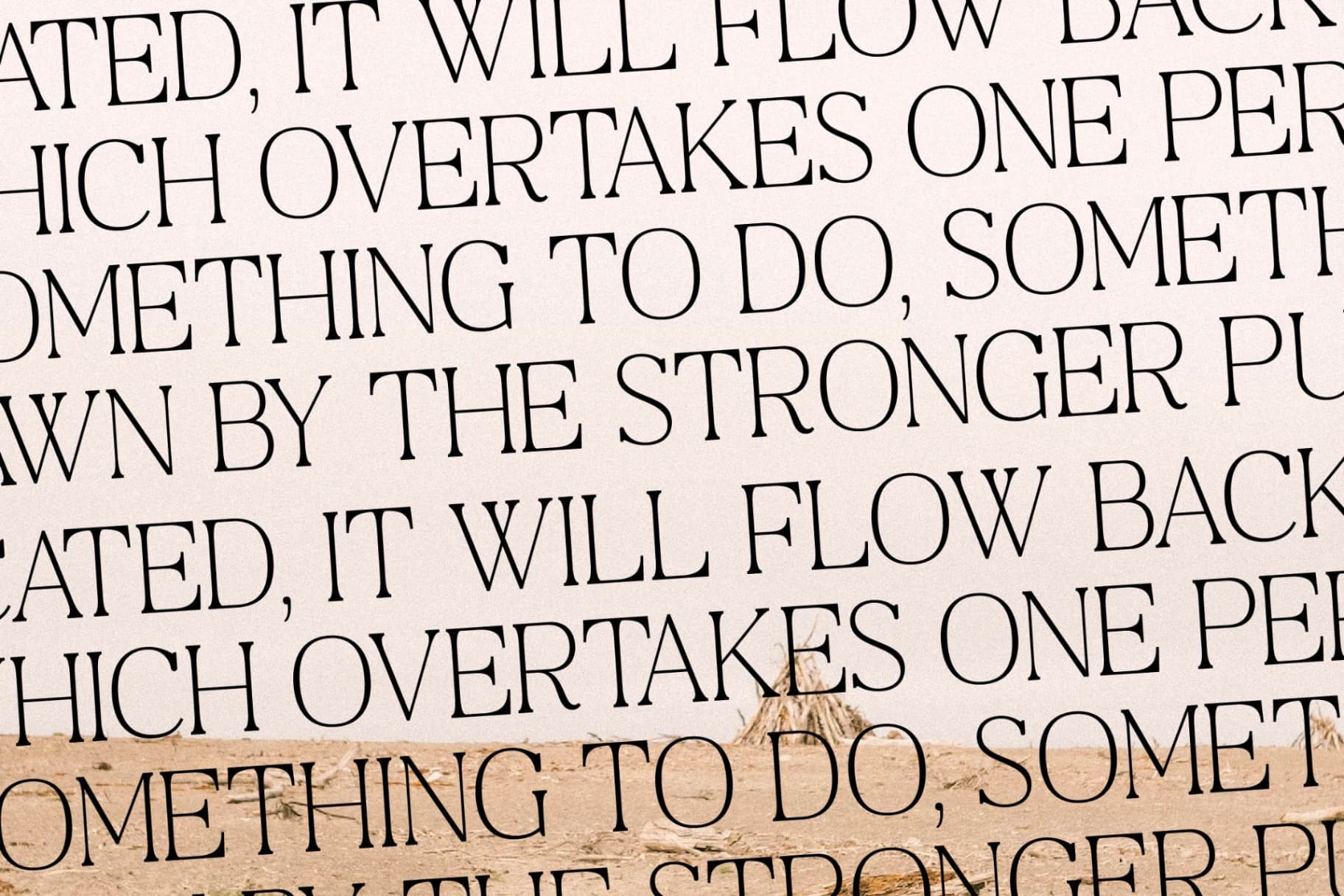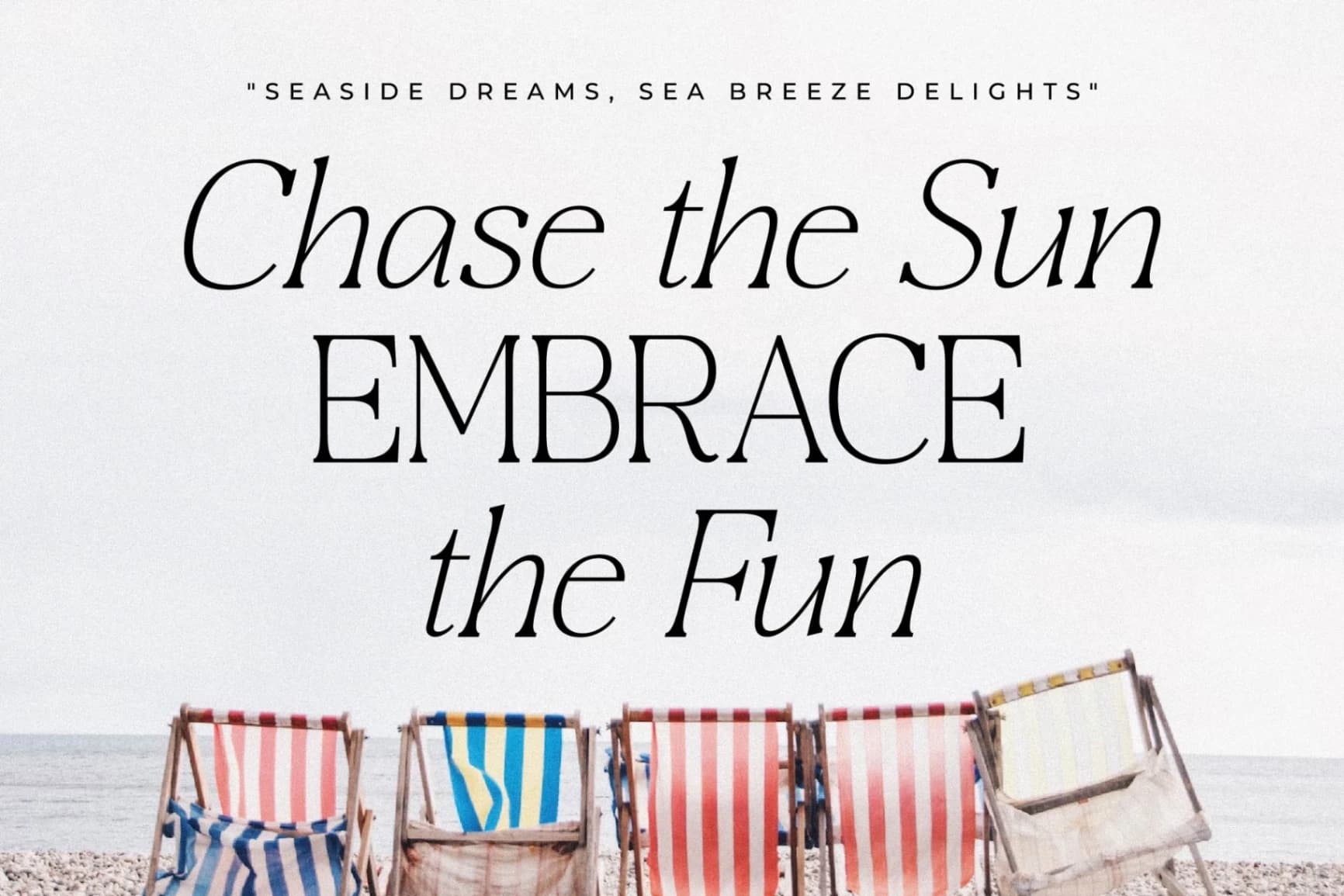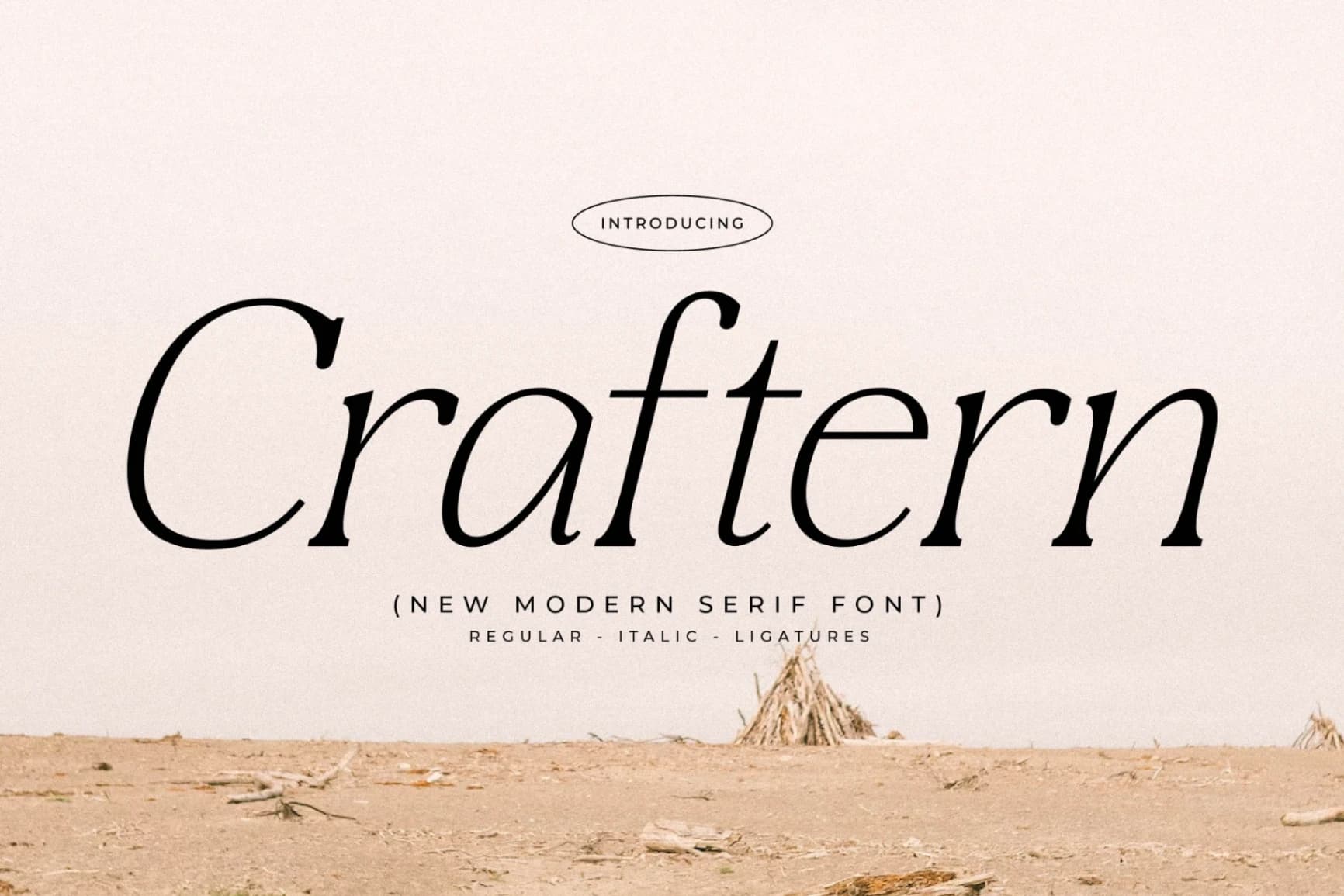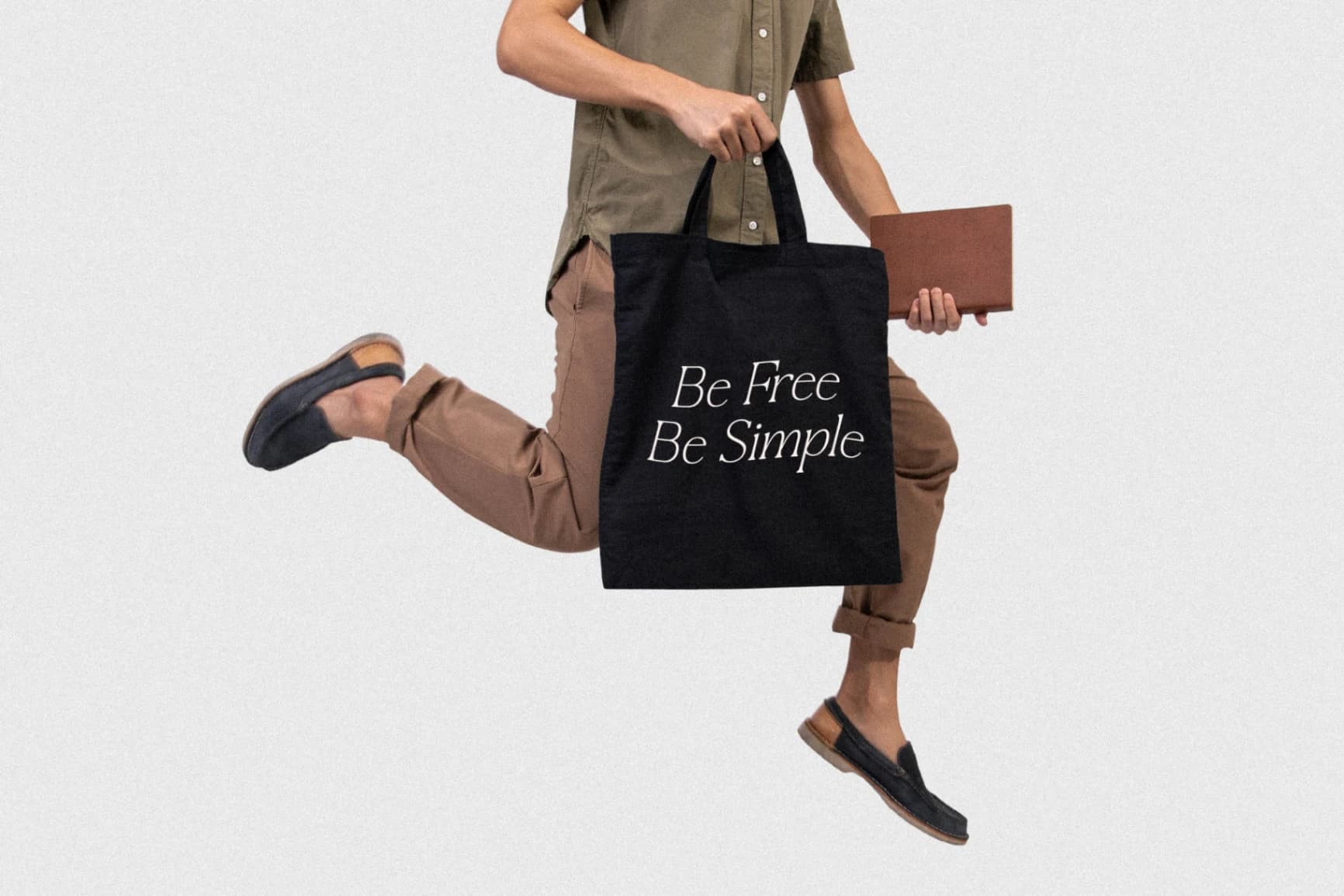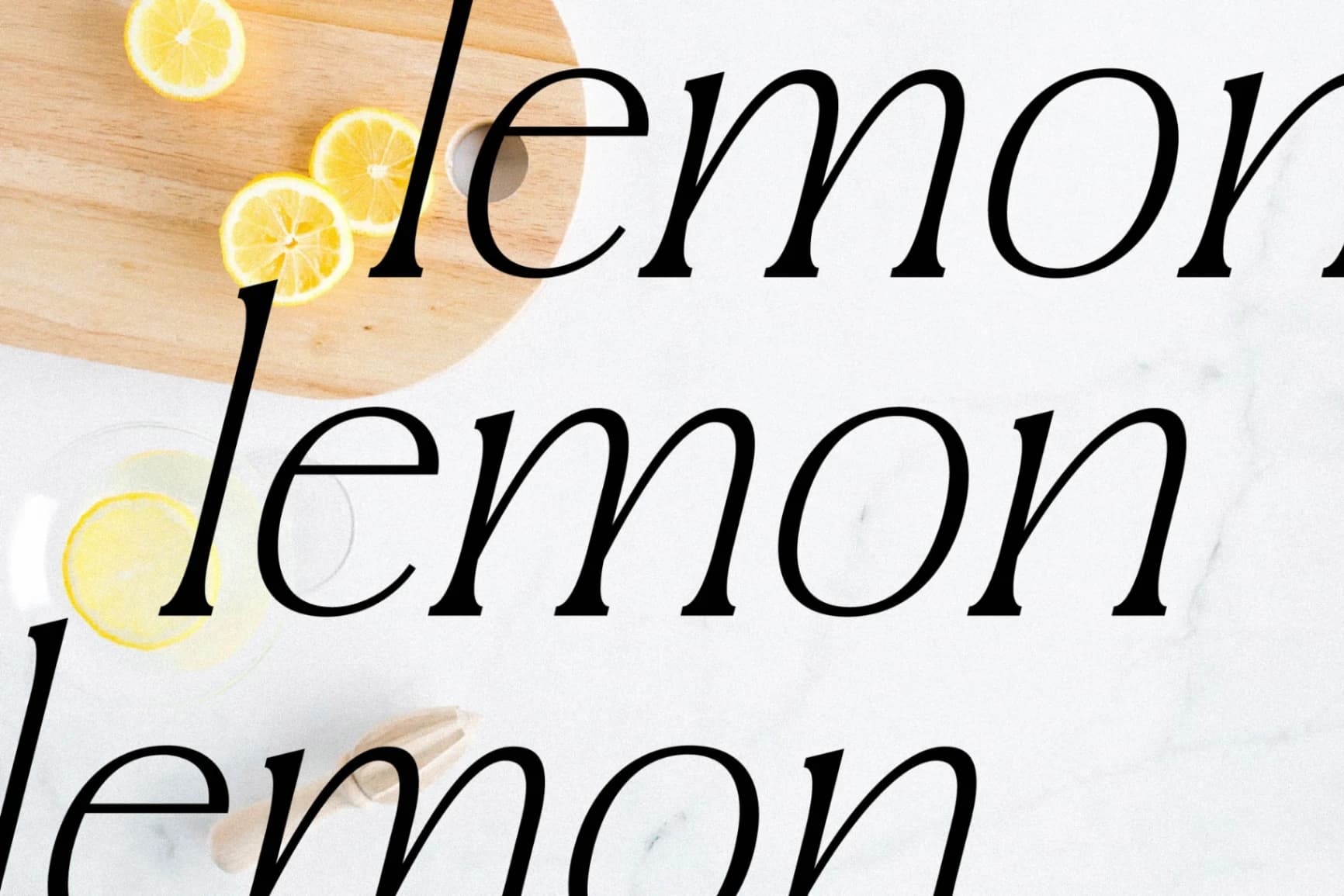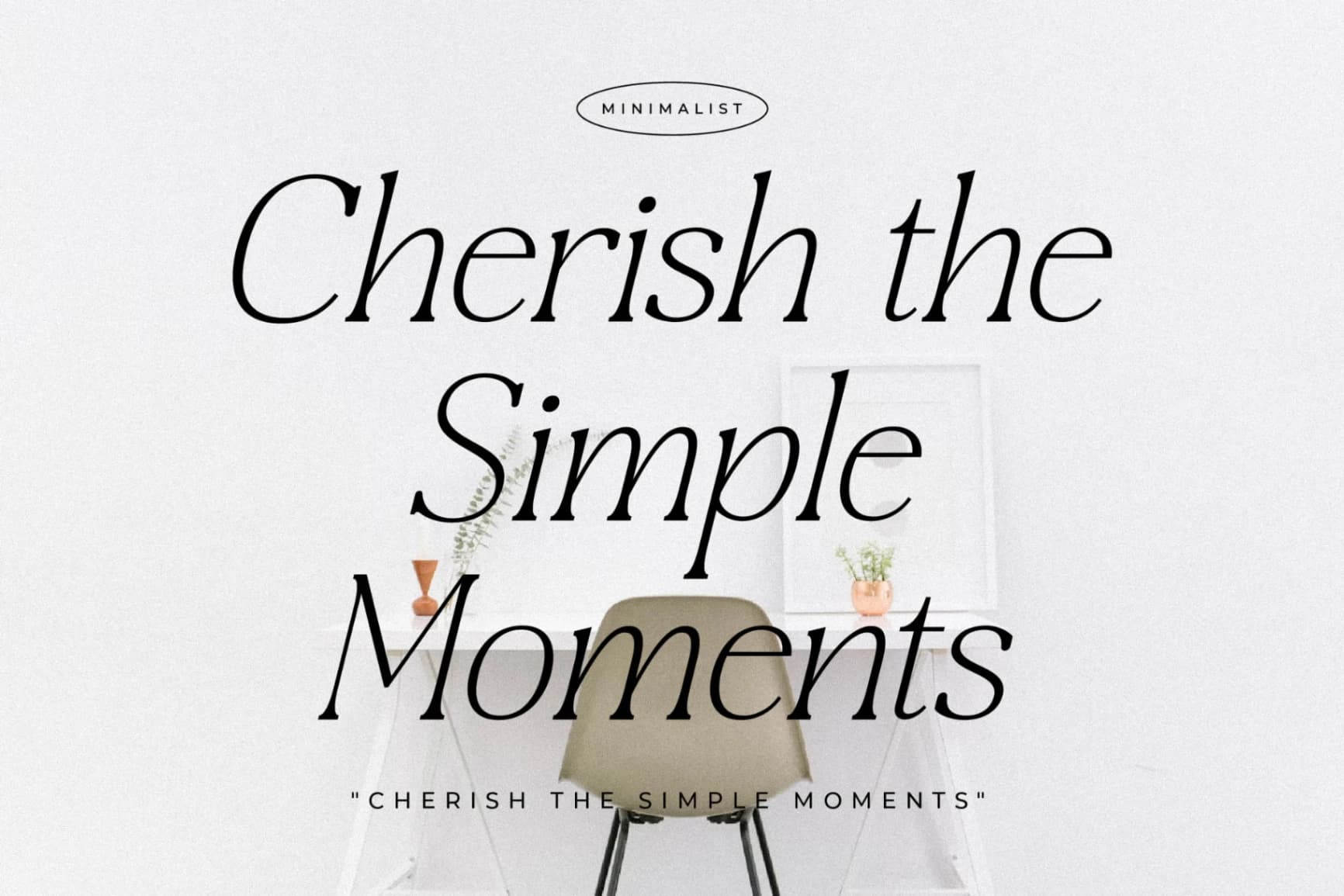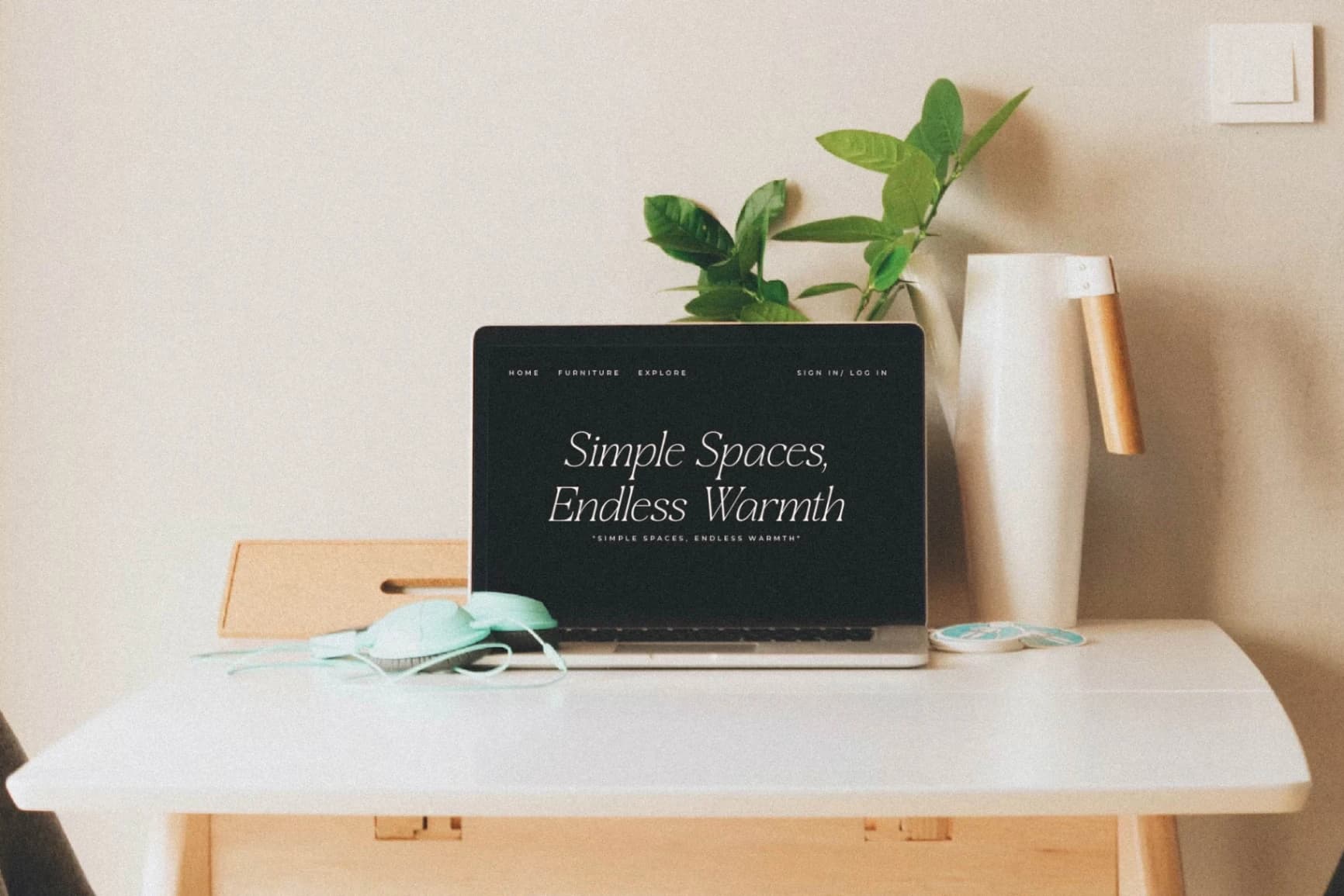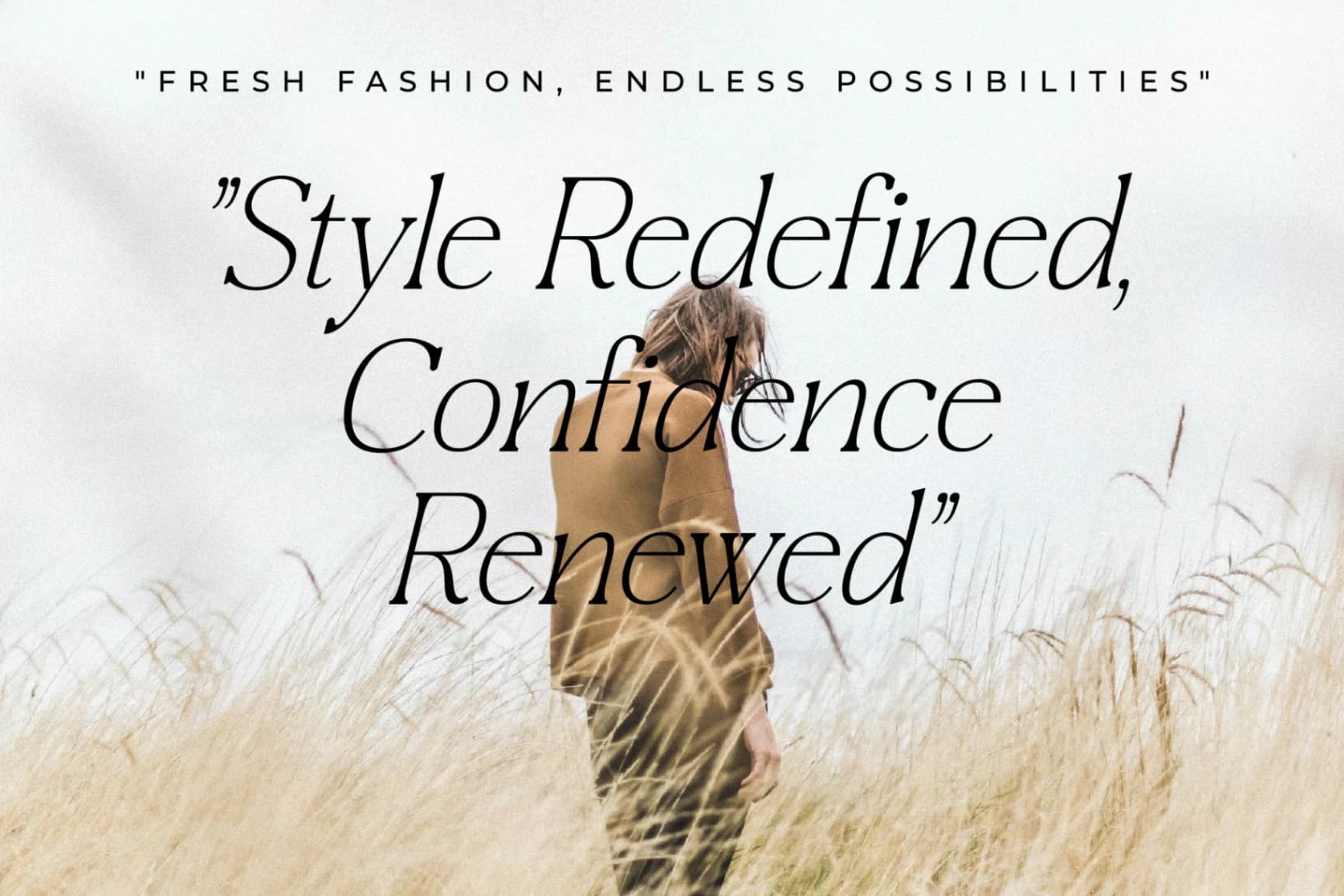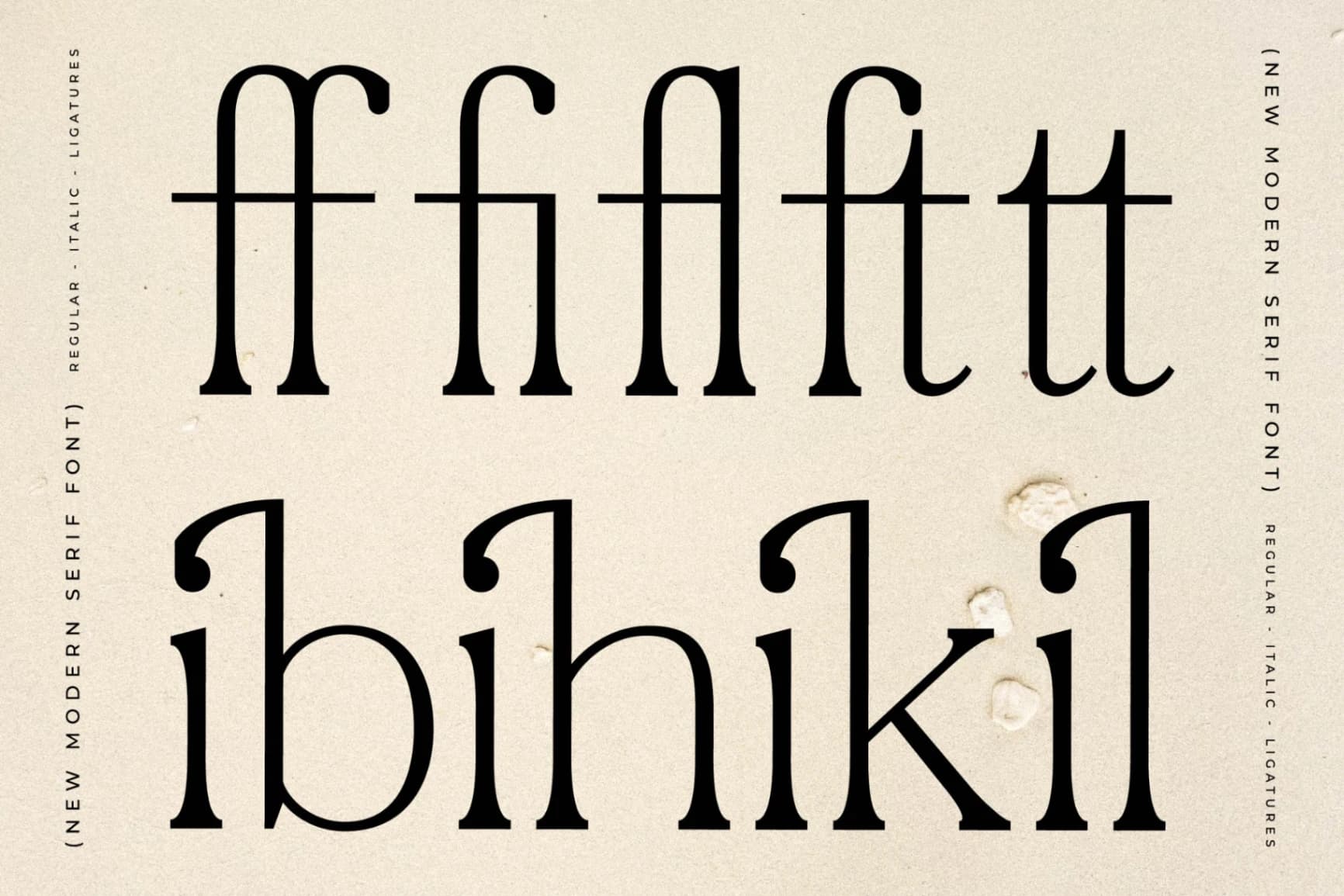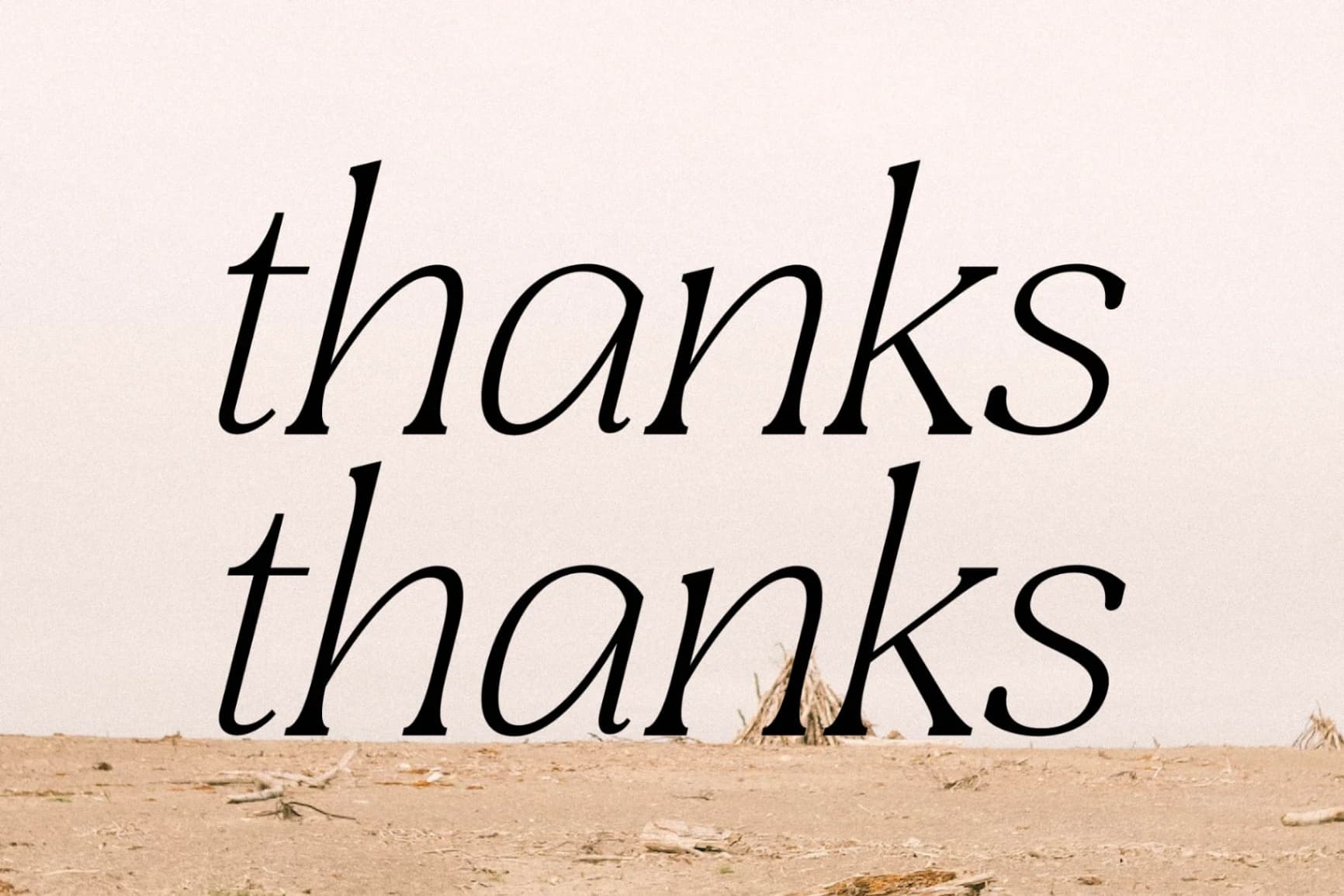
Craftern - New Modern Serif Font
Unlock a new era of sophisticated typography with Craftern - New Modern Serif Font. This typeface masterfully blends traditional elegance with a dynamic, contemporary flair, characterized by its stunningly high-contrast strokes and graceful letterforms. The delicate serifs provide a stable foundation, while the dramatic line variation injects a sense of premium movement and undeniable fluidity, making it an immediate focal point for any visual design.
Make an indelible first impression that resonates with exclusivity and prestige. Craftern - New Modern Serif Font is the ultimate tool for luxury branding, editorial mastheads, and high-end packaging design. Its inherent elegance is perfect for creating memorable logos, sophisticated wedding stationery, beauty product labels, fashion publications, and any project demanding a touch of timeless sophistication and powerful visual hierarchy.
Ensure your brand communicates flawlessly across every border and platform. With its extensive multilingual support, Craftern - New Modern Serif Font adapts seamlessly across global markets, making it incredibly versatile for international projects. Furthermore, the inclusion of meticulously designed ligatures and stylistic alternates allows for custom headline construction, providing professional designers with essential OpenType features to enhance visual rhythm and character connection.